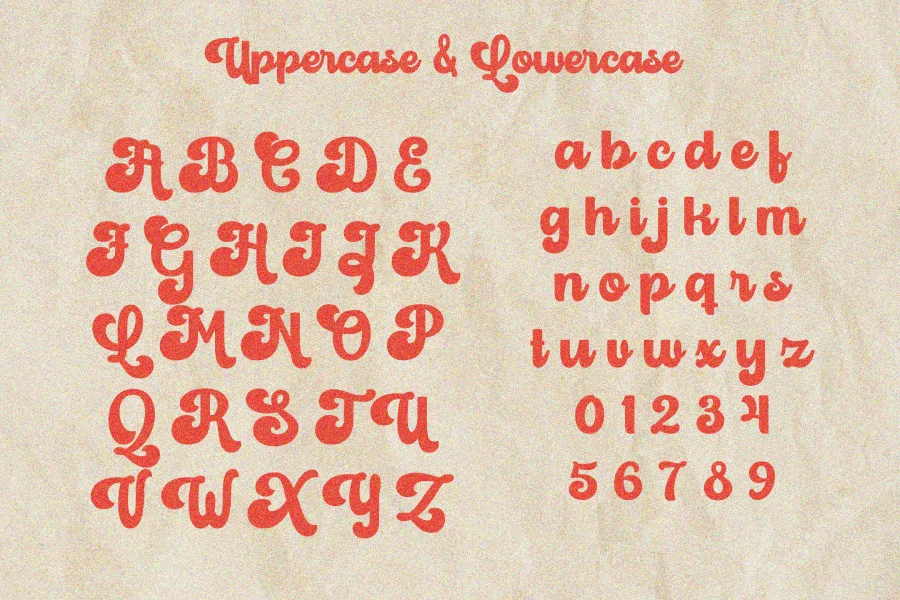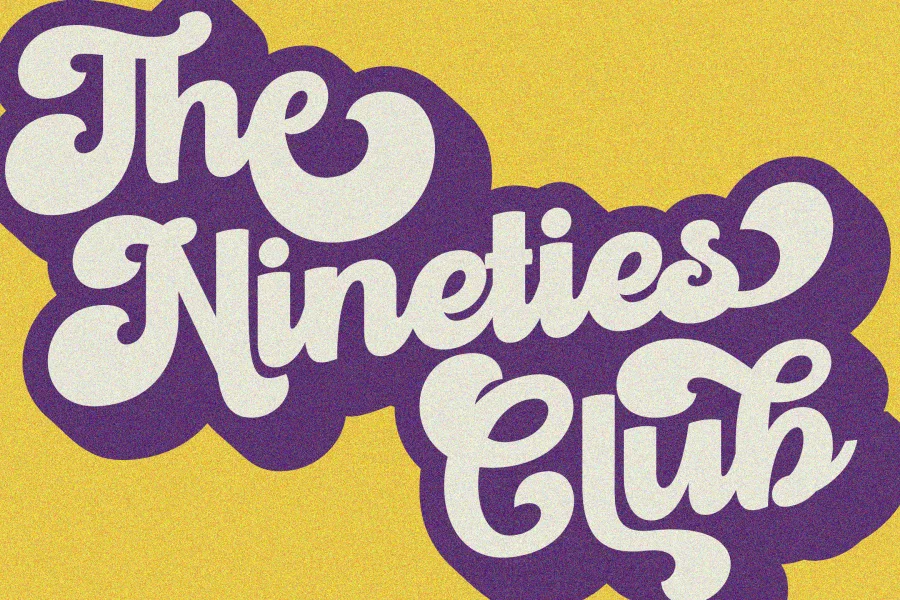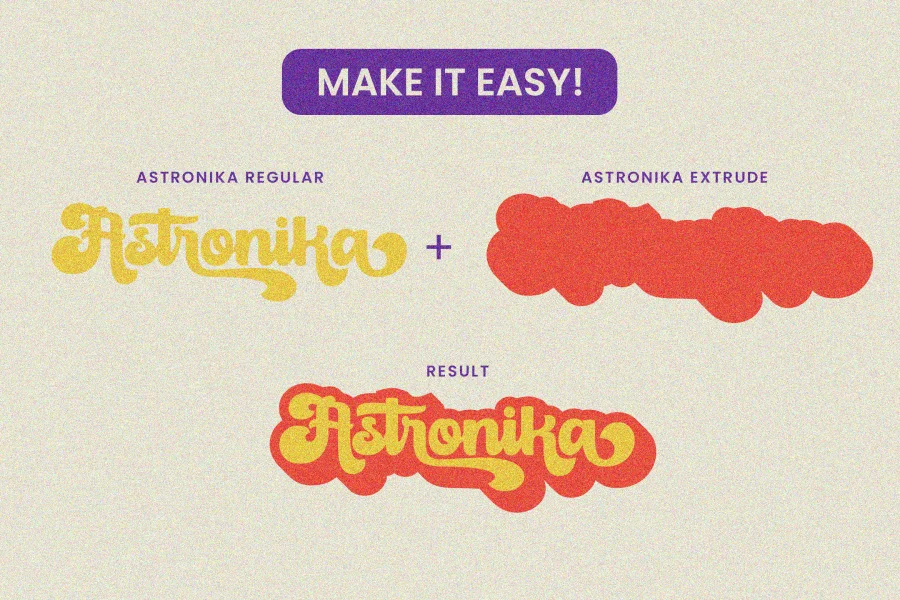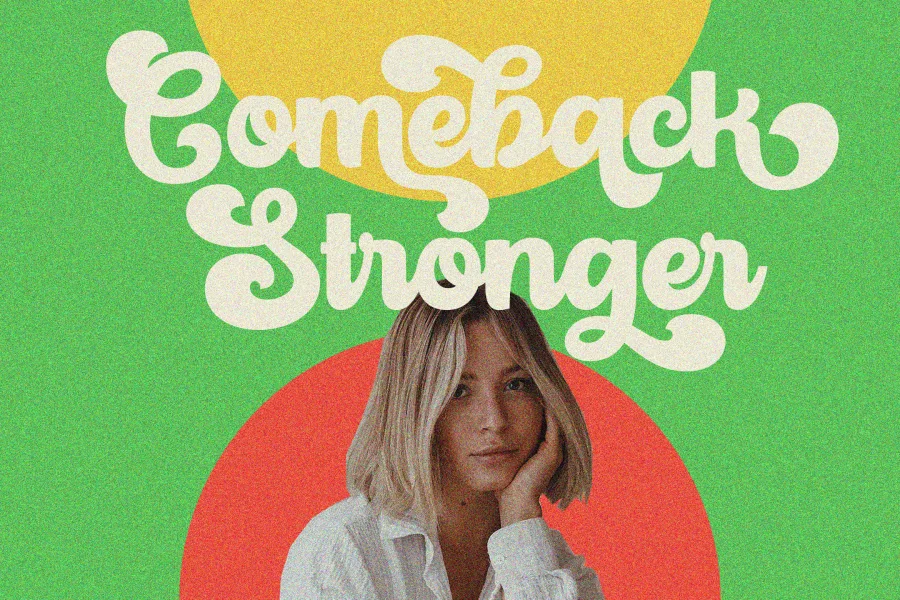
Astronika is a retro and bold script font. Inspired by the 70’s and 80’s lettering, this font perfect for vintage designs, badges, logos, t-shirts, posters, branding, packaging, signage, book covers and so much more!